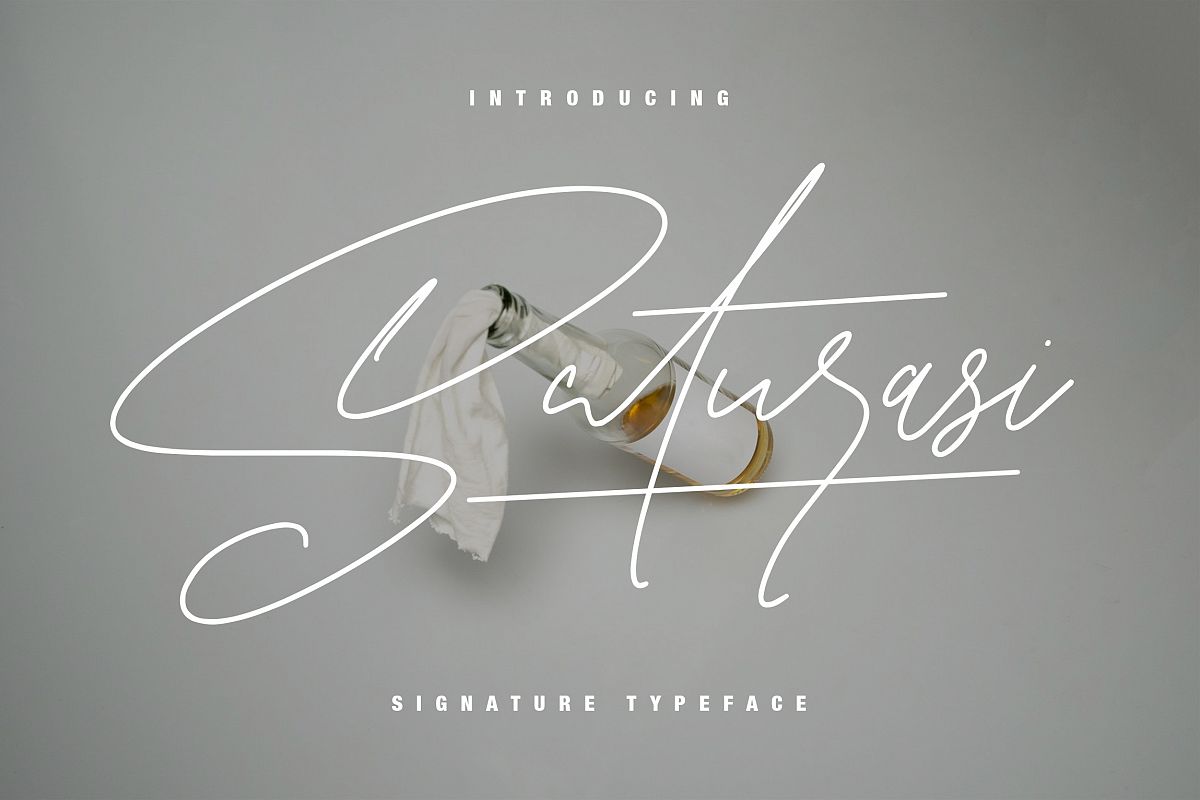
Give your designs an authentic handcrafted feel. "Saturasi" is perfectly suited to signature, stationery, logo, typography quotes, magazine or book cover, website header, clothing, branding, packaging design and more. Included Alternates.Use the alternates in Adobe Illustrator and Adobe Photoshop, this is the quick tutorial:https://youtu.be/sV2dpD7oTuwLicense: This font included for personal, commercial use, multiple projects, behalf of a client. Fonts may be printed on to products that are subsequently sold, websites and within website design. Graphics may be printed on to products that are subsequently sold when an effort is made to use them as part of a new design including a variation of other graphics or fonts.Font Available: